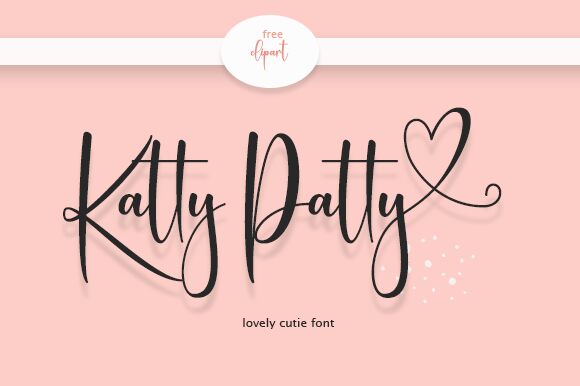
Katty Patty
Katty Patty by Fillo Graphic is a charming calligraphy font that adds an elegant touch to any project. With its light weight and condensed width, Katty Patty is perfect for fashion design, wedding invitations, and branding projects that require a delicate touch. This font's graceful curves and flowing strokes reflect the artistry of traditional calligraphy - ideal for creating an air of sophistication in your designs. Whether you're crafting a logo or designing a website, Katty Patty will bring your creative vision to life with its distinctive style and refined elegance.